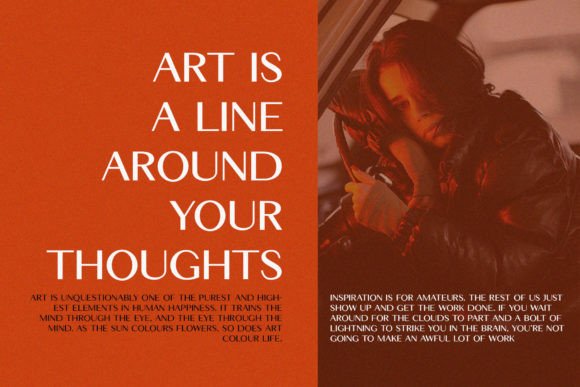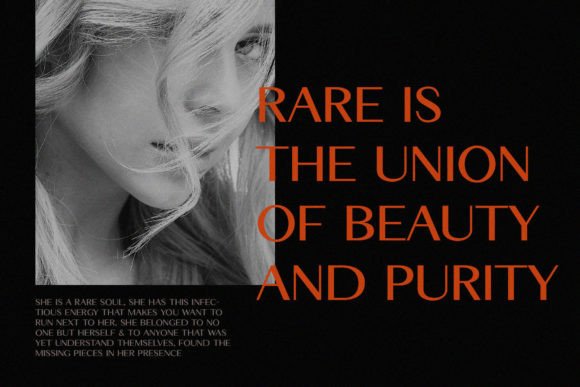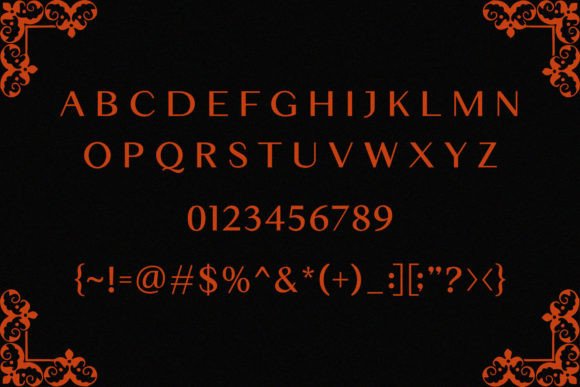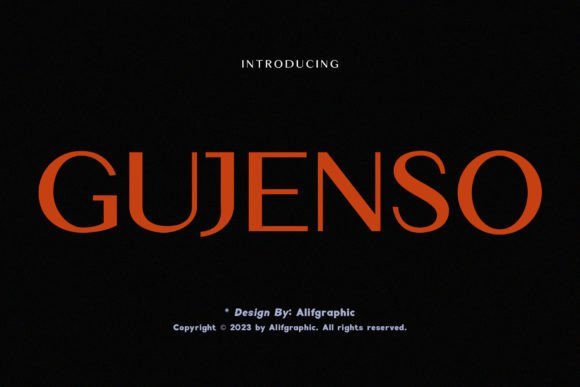
Introduction to Gujenso Font
Introducing the new Gujenso Modern Sans-Serif Gujenso is a classy, modern sans font.
This font is modern and elegant and works great for websites, logos, magazines, and social media This font is matched and ready to be used together for your next design.